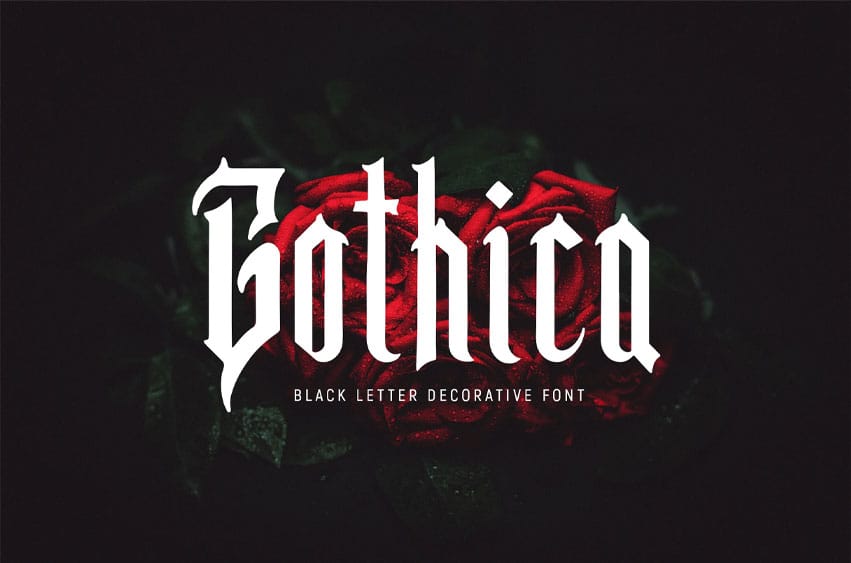
Gothica Font is cool for branding, Birthday invites, Esport theme, Mugs, Business Cards, Quotes, Posters, and many more.
Every letter has a unique and beautiful touch, which will make your design come alive!